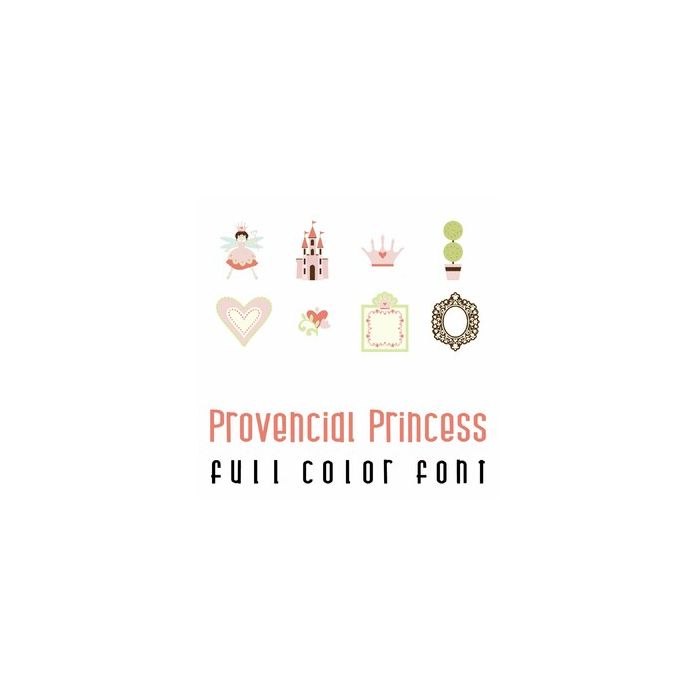
This adorable full color doodlebat font features beautiful princess, florals, and castle decor. Perfect for cards, crafts, gifts, decor, scrap book pages, planner stickers and more!